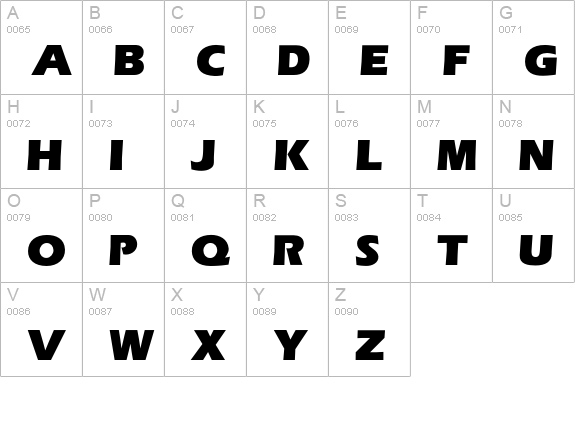
ErasUltra Font Details
ErasUltra font is a stunning typeface that exudes elegance and modernity. With its sleek lines and balanced proportions, this font is perfect for adding a touch of sophistication to any design project. Whether you're creating a logo, poster, or website, ErasUltra font will make your text stand out with its unique style. Best of all, ErasUltra font is completely free to use! You can easily download this versatile font from FontsMarket.com and start incorporating it into your projects right away. Don't miss out on the opportunity to enhance your designs with the timeless appeal of ErasUltra font.